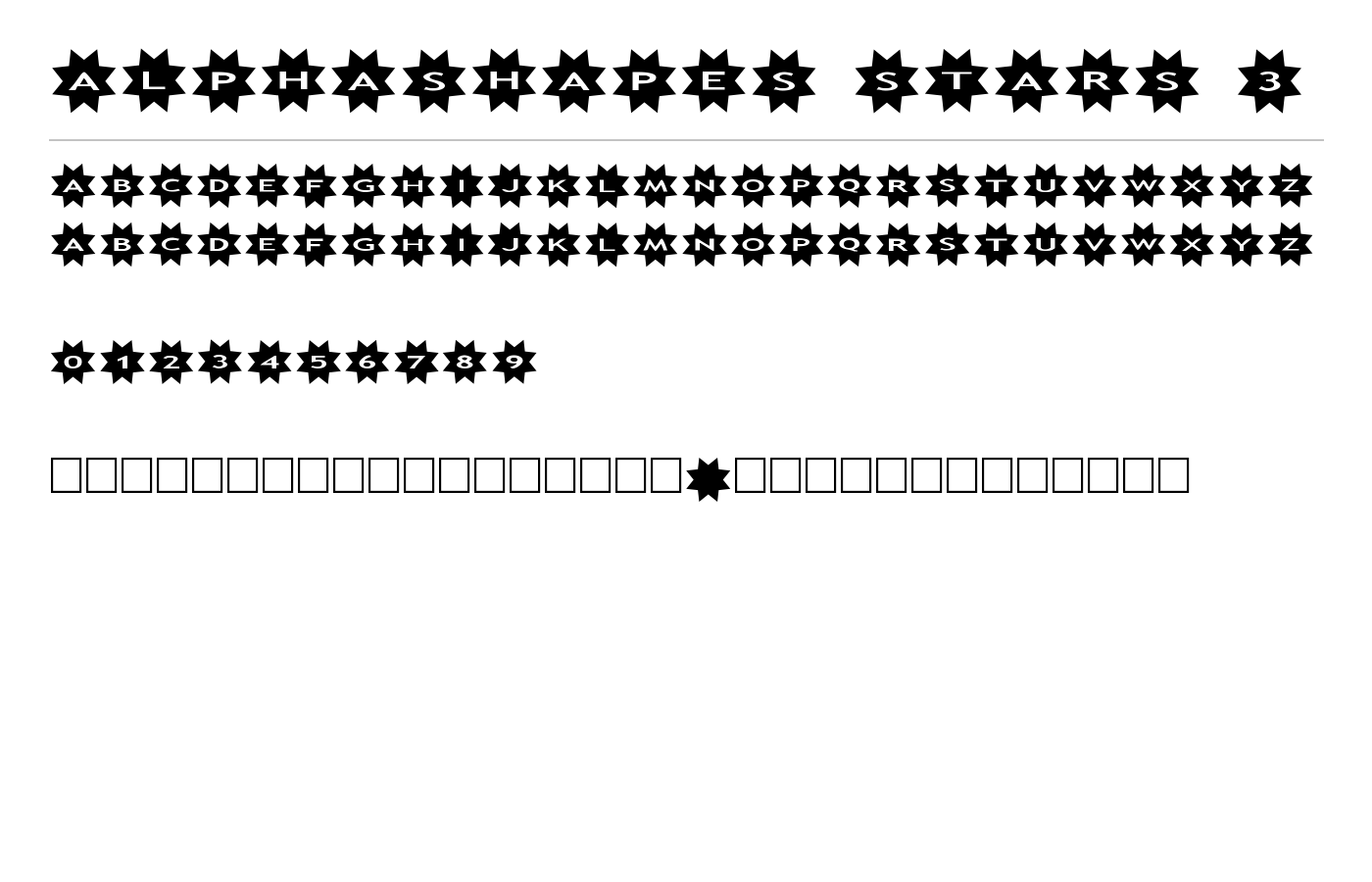
AlphaShapes Stars 3 is a bold, decorative display font featuring uppercase letters and numbers enclosed within striking star shapes. Its playful and eye-catching design adds a fun, energetic vibe perfect for festive, creative, or children’s projects. This font works especially well for headlines, logos, and promotional materials where a lively, standout look is desired.
AlphaShapes stars 3 Font
About AlphaShapes stars 3 Font